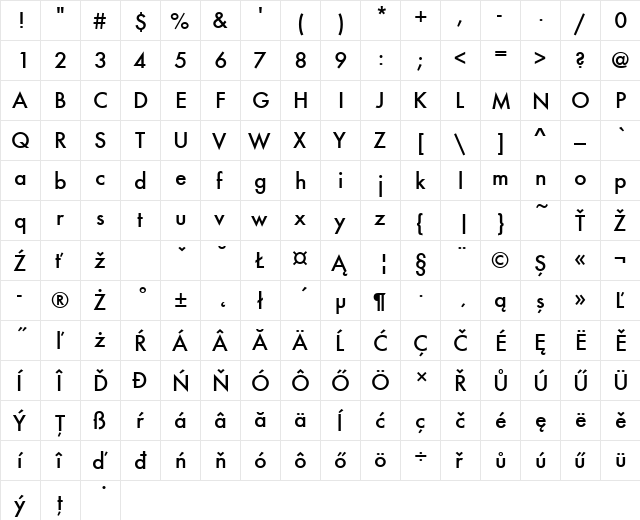
FuturaTEEMed Regular
Design Context for FuturaTEEMed Typeface
FuturaTEEMed channels digital-age aesthetics through its sharp, structured letterforms — ideal for brands that want to signal innovation.
Pro Tip: Try FuturaTEEMed with generous letter-spacing in UI labels and navigation — the geometric forms benefit from room to breathe.